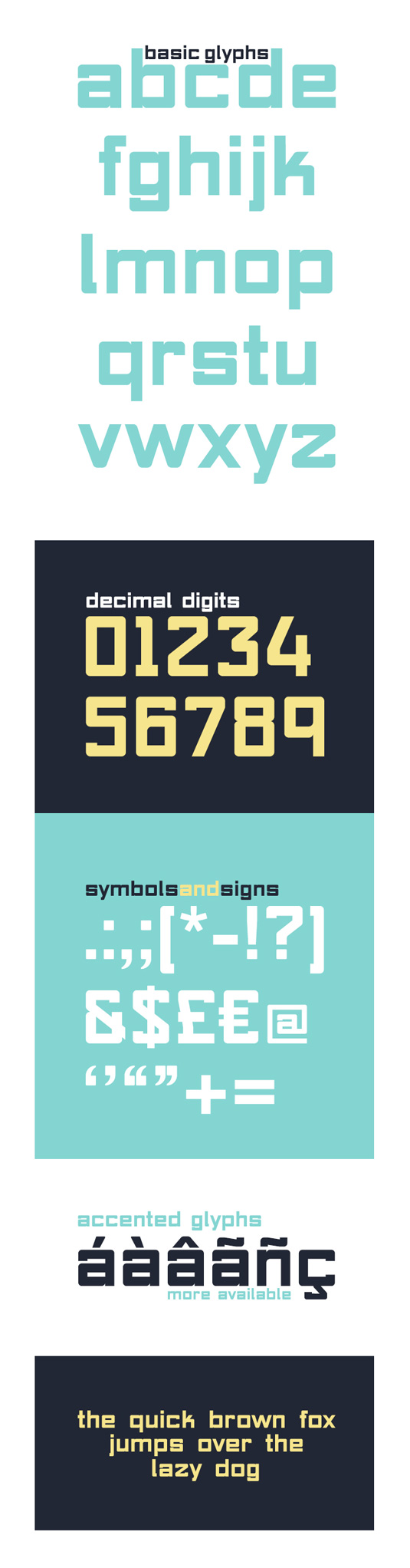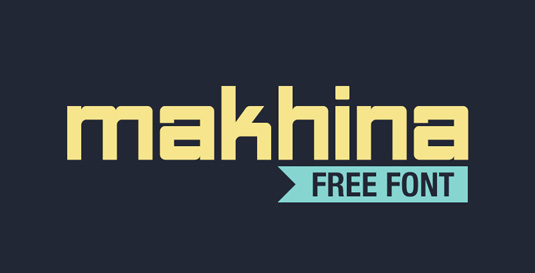
Font of the day: Makhina
Every day we showcase the best fonts from around the web. Today it's Makhina by Nuno Dias, which is free to download!
Makhina by Nuno Dias
Nuno Dias is a graphic designer with a passion for typography and illustration. He is also the artist behind our font of the day - Makhina. "This is my second attempt on typefaces," Dias comments on Dribbble. "I don't have much experience yet, but this time I tried something more functional and simple. Inspired by gas pipes, the basic shape is a rounded square."